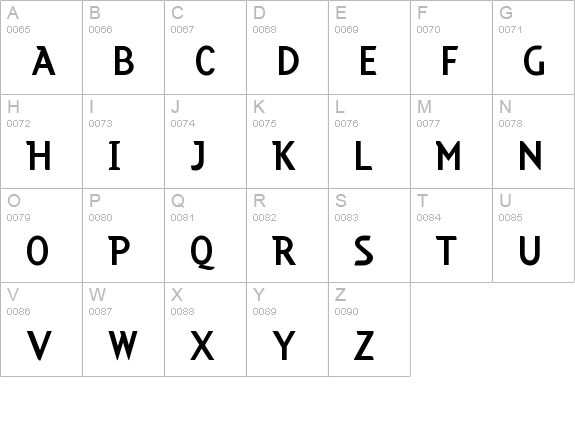
Cuban-Regular is the standard, neutral variant in the Cuban typeface family \xE2\x80\x94 well suited to general body text, paragraphs, and standard typographic work.
Cuban-Regular font is a stylish and versatile typeface that exudes classic elegance and modern appeal. With its clean lines and balanced proportions, this font is perfect for a wide range of design projects, from branding to editorial layouts. The Cuban-Regular font is available for free download at FontsMarket.com, allowing designers and creatives to access this high-quality typeface with ease. Whether you're working on a print design or a digital project, Cuban-Regular font will help you achieve a polished and professional look. Elevate your designs with this timeless font that combines sophistication and readability effortlessly.